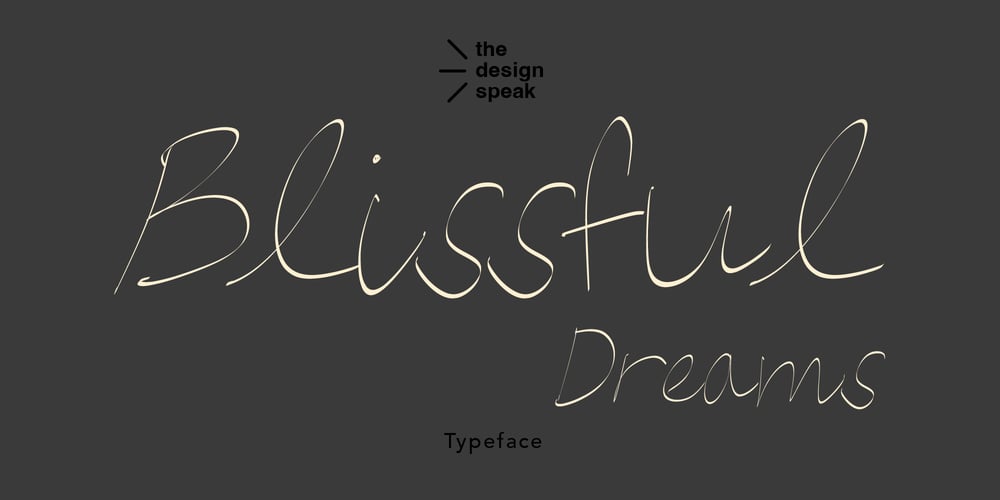
Blissful Dreams
Blissful Dreams font
Blissful Dreams Font Family was designed by Edward Marshall and published by The Design Speak. Blissful Dreams contains 1 styles and family package options. Blissful Dreams is a soft, whimsical typeface designed to evoke calm and enchantment. It features rounded, flowing letterforms with gentle curves and minimal sharp angles, giving it a warm, approachable feel. The light to medium stroke weight conveys subtle elegance without overwhelming the design, while a slightly irregular baseline mimics the organic flow of handwritten text, adding a playful touch. Delicate flourishes on certain letters, such as “b,” “d,” and “g,” suggest dreamy swirls or starlit trails. Its serene spacing ensures excellent readability, making it perfect for logos, quotes, invitations, or branding materials that inspire peace and imagination.